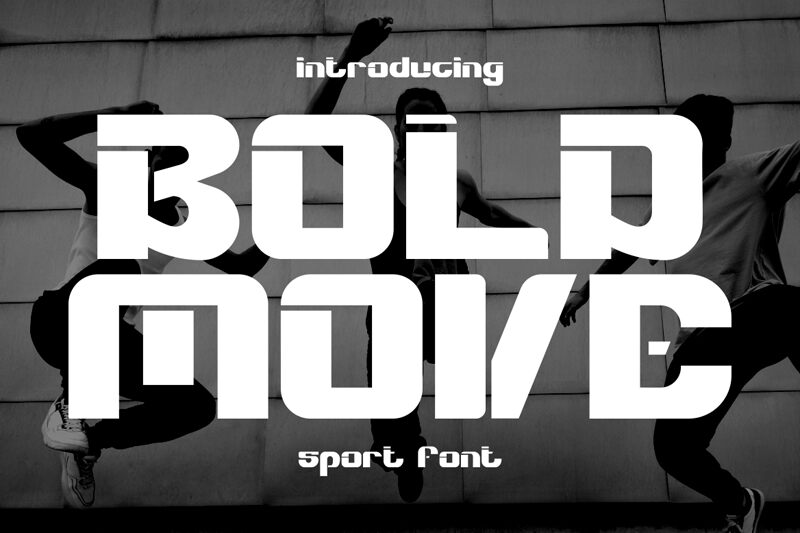
Bold Move font family by PutraCetol Studio is a free techno industrial style typeface that combines geometric, modern, and sporty aesthetics. The designer managed to produce an attention-grabbing digital font with a strong presence suitable for multiple design uses. Along with its futuristic innovative look, the competitive atmosphere you get makes your text different every time. The font comes with 2 original font styles and is not missing an uppercase and lowercase for users.
The application possibilities of Bold Move are countless starting from the basic options like magazine titles, posters, cards, stationery, and branding projects. Try the font in a book cover, collage, or even social media graphics. Yet, the engaging characteristics of the font can pay off more in industries like automobile and digital technology.